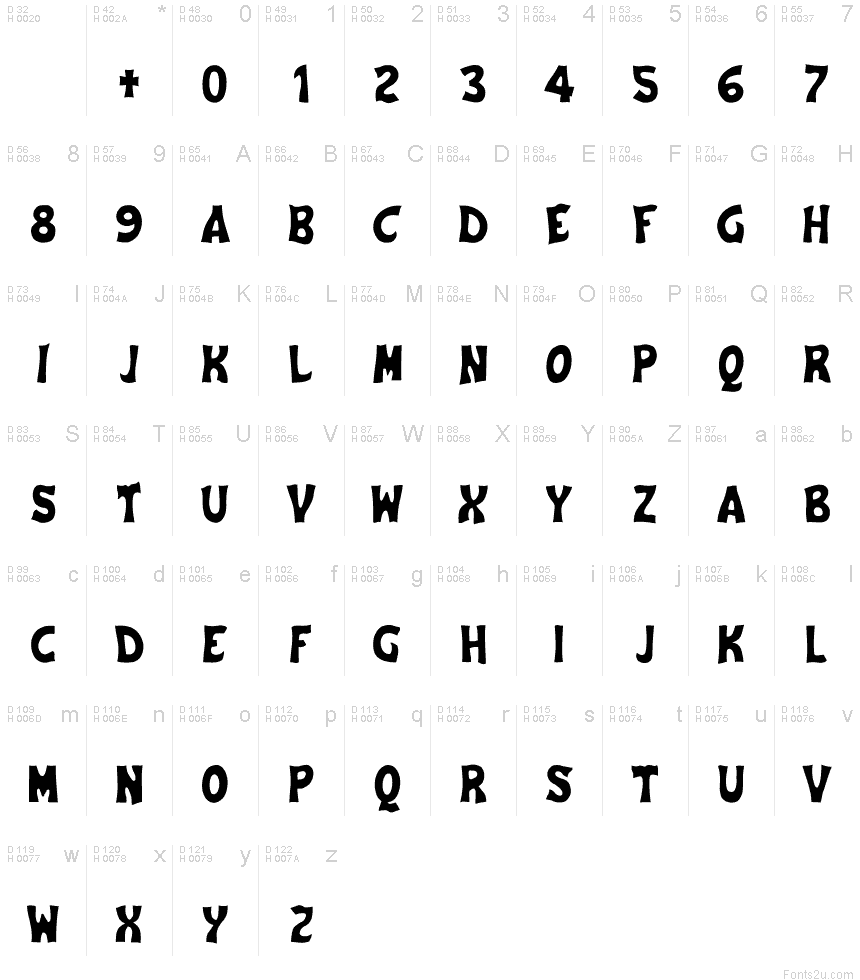
Cementeria
Cementeria font by MatreroG Disenio is a free scary display font with thick, graveyard-dark shapes and uneven, dripping edges that feel cut from an old horror poster. Its heavy rhythm keeps words bold and readable, while the crooked curves and chunky silhouette add a sly, midnight-at-the-cemetery mood.
Using Cementeria works beautifully for Halloween invitations, haunted house flyers, horror movie titles, spooky merch, game headers, goth stickers, and eerie social posts. Set it large so the rough outline can breathe, and pair this free font with a plain condensed sans for supporting text.